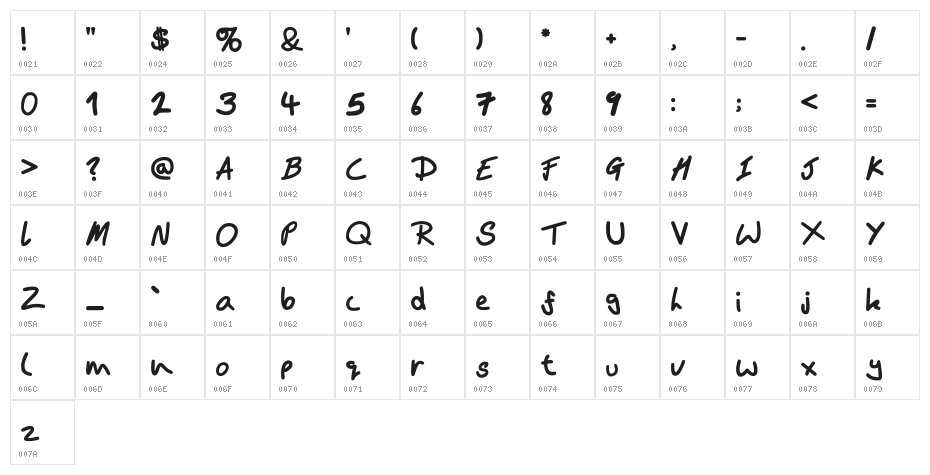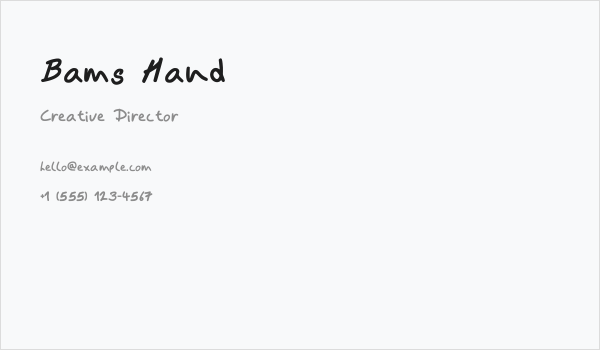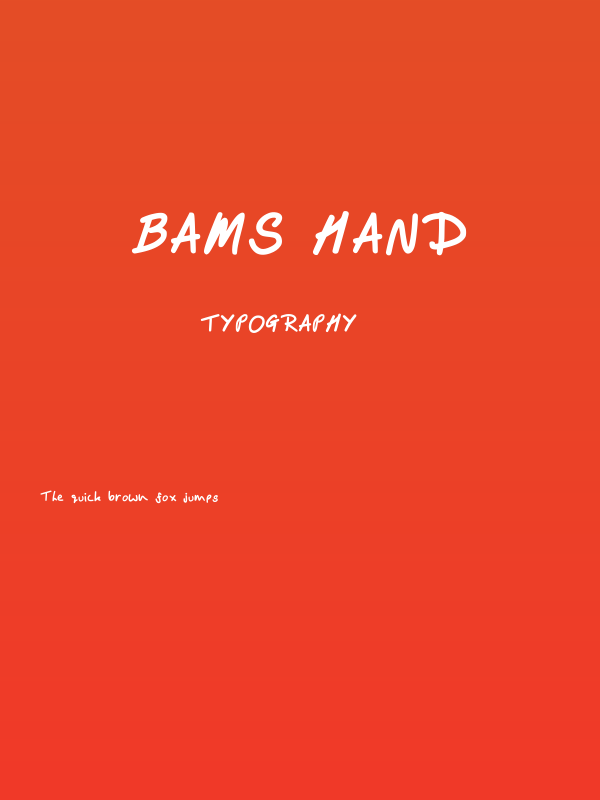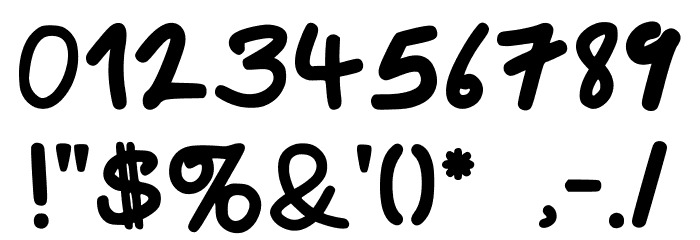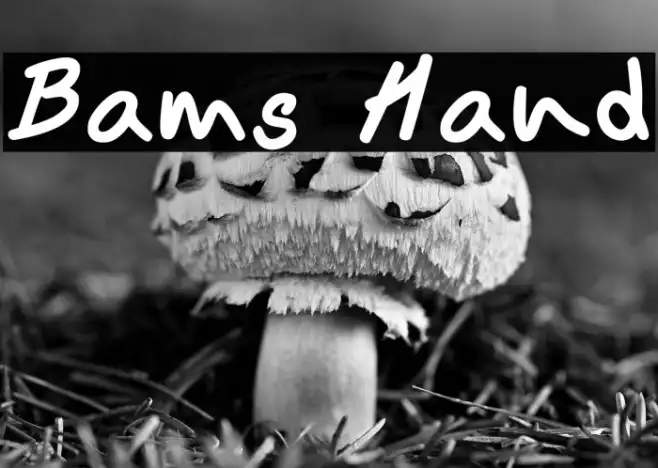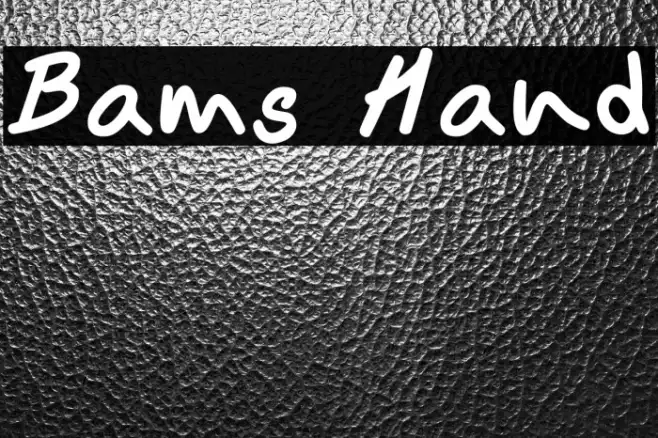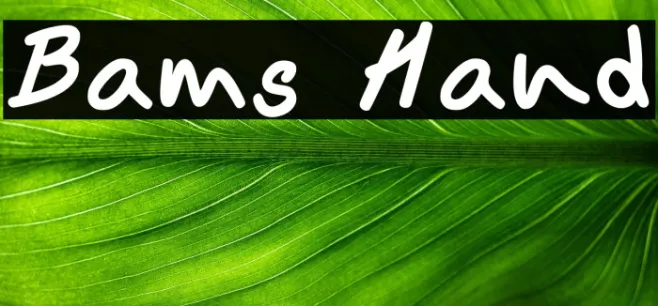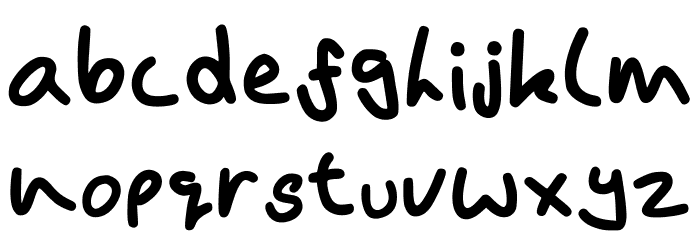
Bams Hand Font
Bams Hand Description
This font exudes a playful and casual handwritten style, characterized by its smooth, flowing curves and slightly irregular letterforms. The uppercase and lowercase letters maintain a consistent, friendly appearance, with rounded edges that enhance its approachable feel. The numerals and special characters follow the same whimsical design, making it suitable for projects that require a personal touch. Its informal nature makes it ideal for creative and fun applications, where a sense of warmth and personality is desired.
| Proposed Projects | Ideal for greeting cards, children's books, casual branding, and social media graphics. |